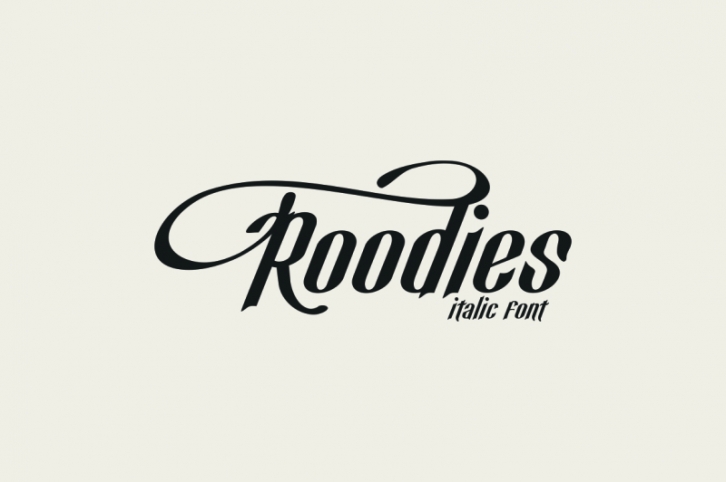
Roodies is a typeface that inspired from old and vintage lettering. Suits best for vintage / classic designs, logo, signage, headline, etc. Available uppercase, lowercase, numerals, basic punctuations.